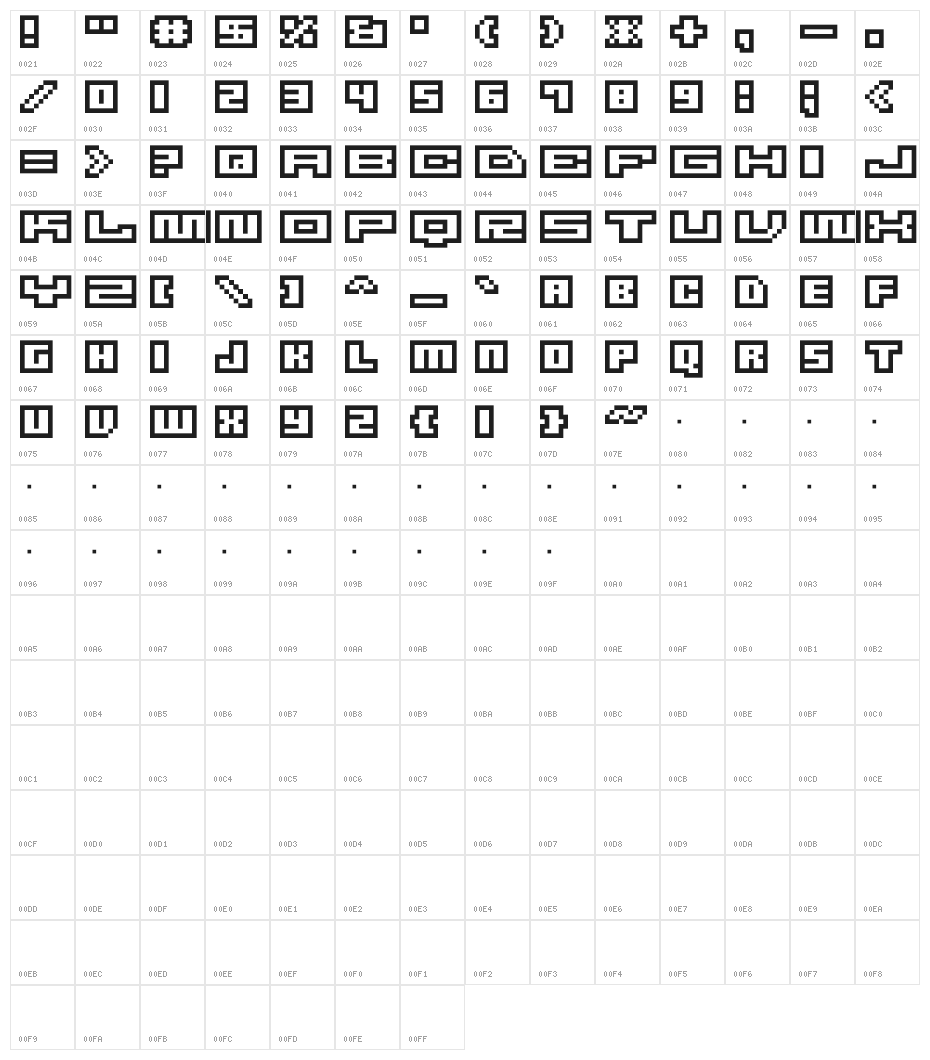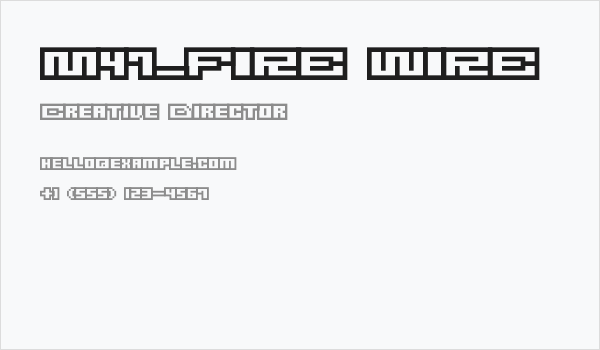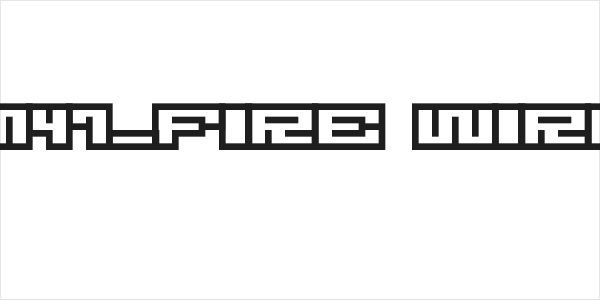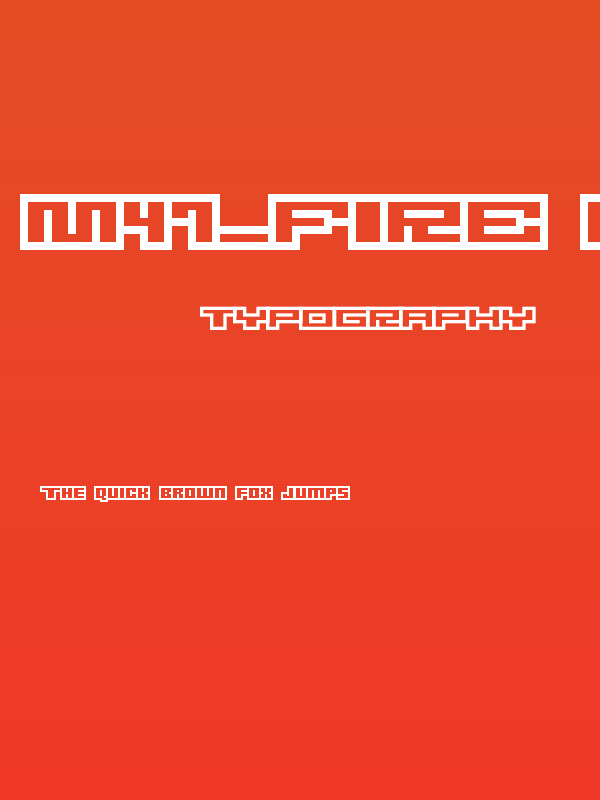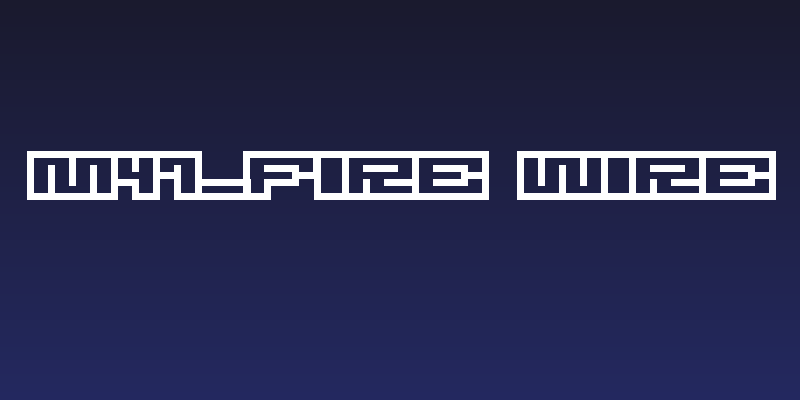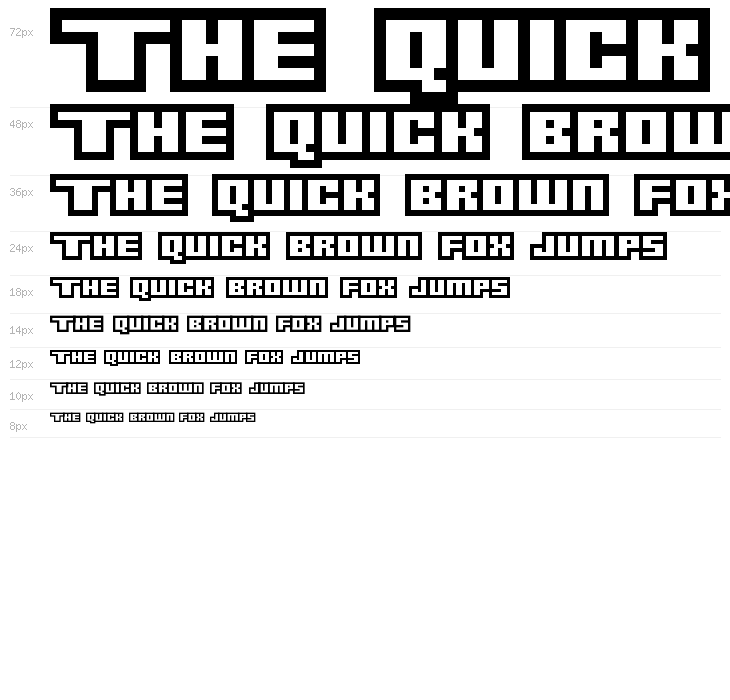
M47_FIRE WIRE Font
M47_FIRE WIRE Description
This font features a bold, geometric design with a distinct pixelated appearance. Each character is constructed with sharp, angular lines, creating a digital or retro video game aesthetic. The uppercase letters are uniform in height, while the lowercase letters maintain a consistent style, enhancing the font's cohesive look. Numbers and special characters follow the same design principles, ensuring a seamless integration across all text elements. The font's blocky nature and clear edges make it highly legible, even at smaller sizes, while its unique style adds a touch of nostalgia and modernity simultaneously.